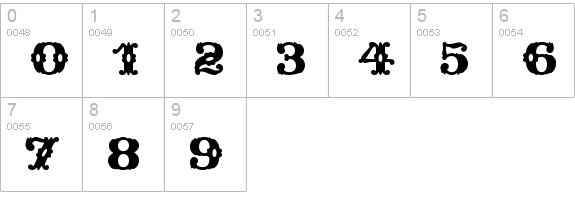
Introducing Wild West Wind, a captivating and adventurous font that transports you back to the untamed era of the Wild West. This font embodies the spirit of the rugged frontier, with its bold lines and rustic charm. Its vintage-inspired letterforms are reminiscent of weathered wooden signs and hand-painted posters that adorned saloons and trading posts. Wild West Wind perfectly captures the essence of the Wild West, bringing to life the spirit of cowboys, outlaws, and frontier towns. Its distinctive design evokes a sense of adventure and freedom, as if riding horseback through vast open plains or exploring hidden canyons. What sets Wild West Wind apart is the fact that it is not only visually appealing but also freely available to download at FontsMarket.com. This means that you can easily incorporate this unique font into your creative projects without any cost. Whether you're designing a vintage-inspired logo, creating a poster for a themed event, or even crafting a personalized invitation for a Wild West-themed party, Wild West Wind is the perfect choice to add that authentic touch. The versatility of Wild West Wind allows it to be used across various mediums, from digital designs to print materials. Its legibility and character make it a standout choice for headlines, titles, and even body text, giving your projects a distinctive and memorable appearance. So, saddle up and embrace the wild spirit of the Wild West with Wild West Wind font. Download it for free at FontsMarket.com and embark on a typographic journey that will transport your designs to a bygone era of adventure, courage, and endless possibilities. Let your creativity roam free with Wild West Wind!